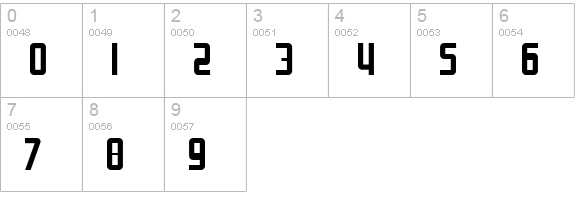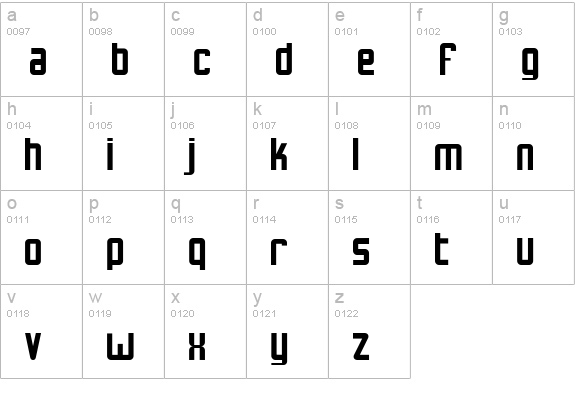
NuWave font is a captivating and modern typeface that exudes elegance and sophistication. Its sleek and stylish design makes it perfect for a wide range of design projects, from branding to editorial design. The clean lines and unique curves of NuWave font give it a contemporary edge that is sure to make your text stand out. What sets NuWave font apart is that it is not only visually stunning but also versatile and easy to use. Whether you are designing a website, creating a logo, or working on a print project, NuWave font will elevate your design to the next level. Best of all, NuWave font is completely free to download at FontsMarket.com. This means you can add this beautiful typeface to your font library without breaking the bank. Don't miss out on the opportunity to enhance your designs with NuWave font - download it today and start creating stunning visuals that will leave a lasting impression.